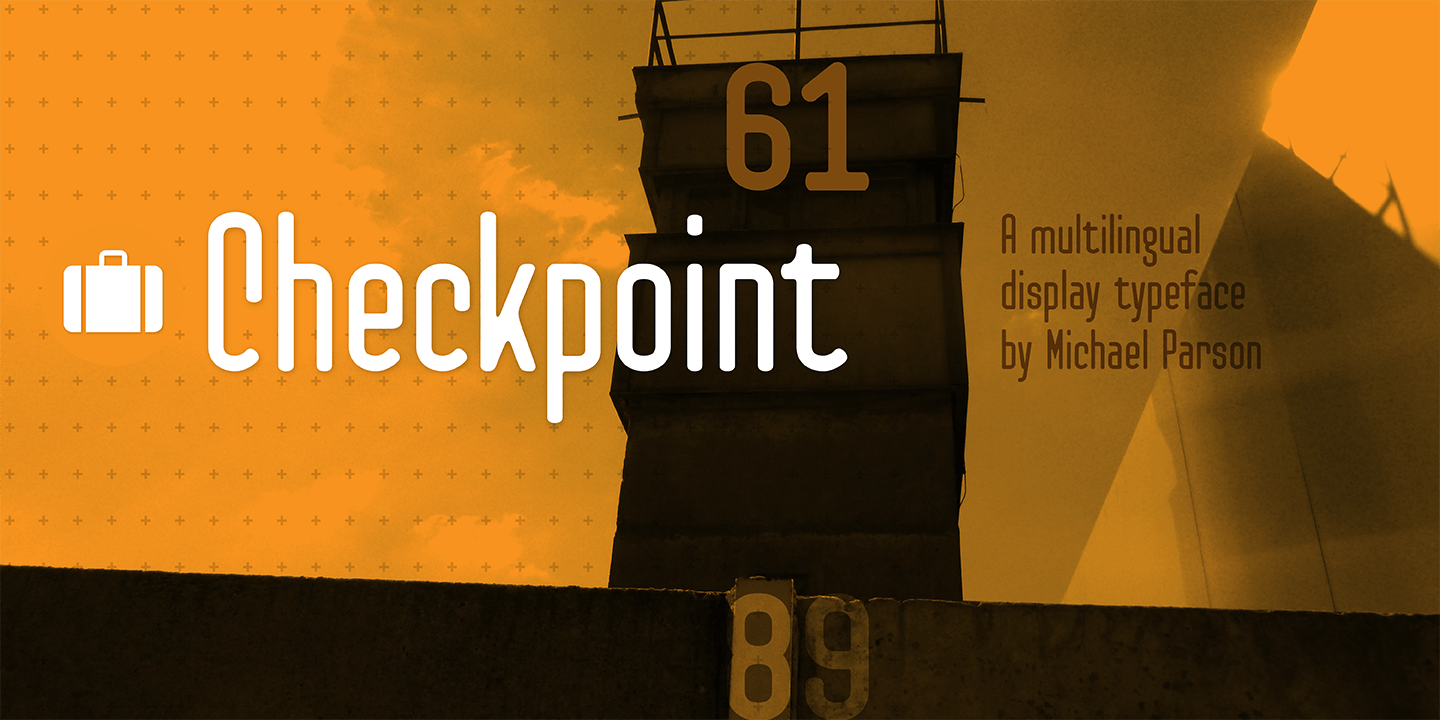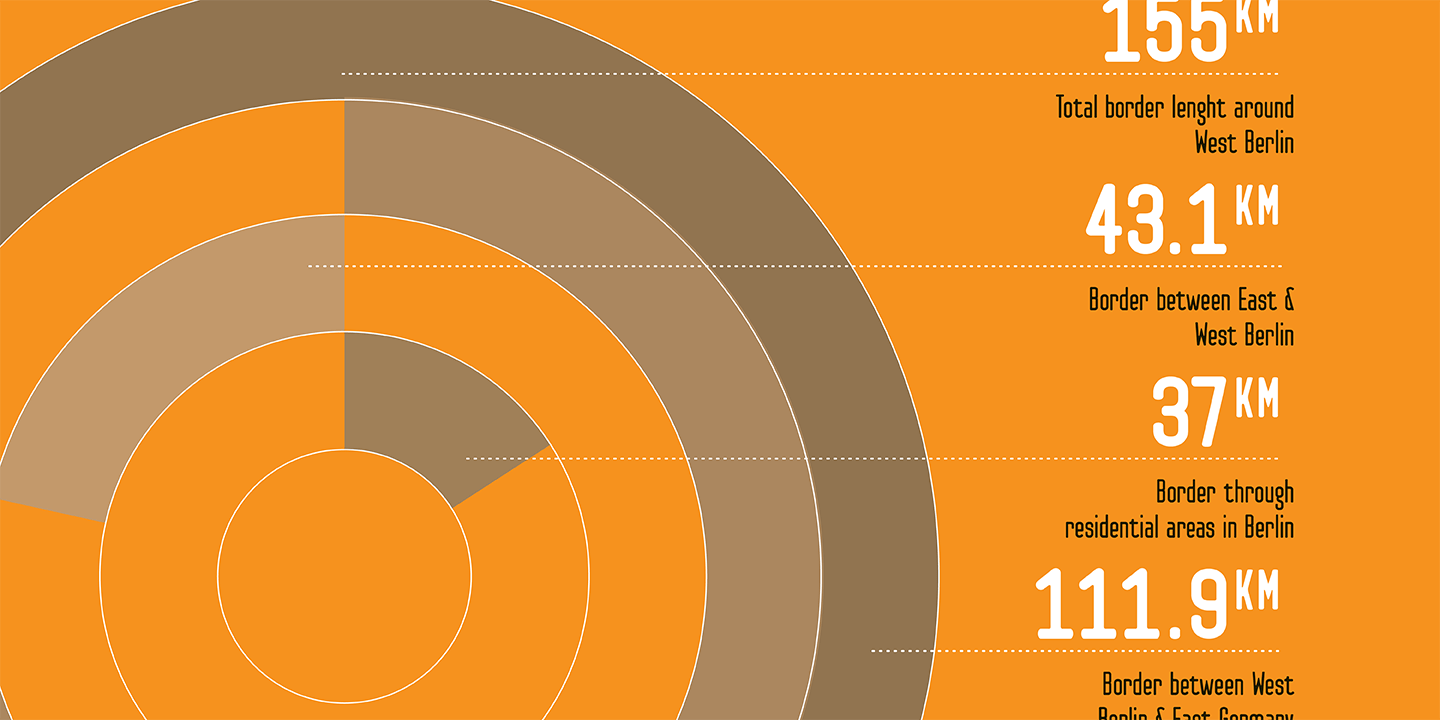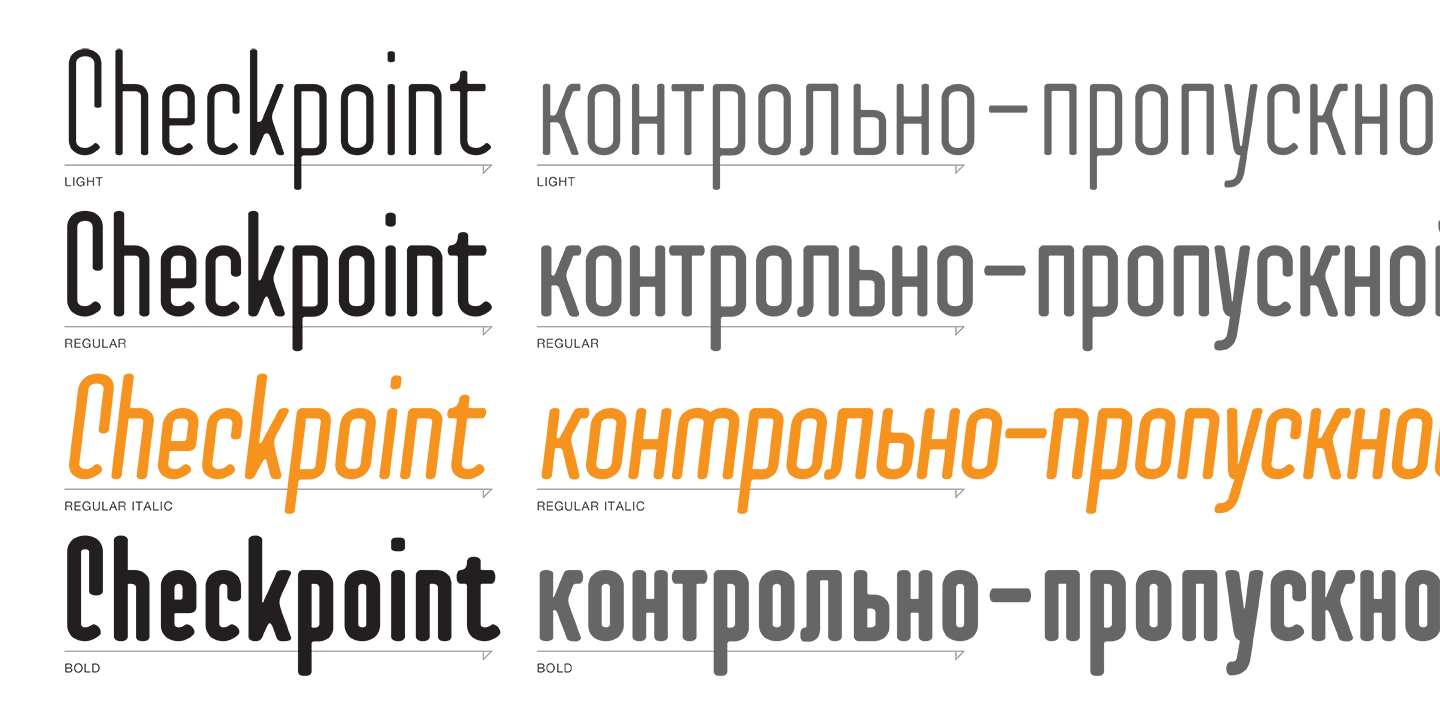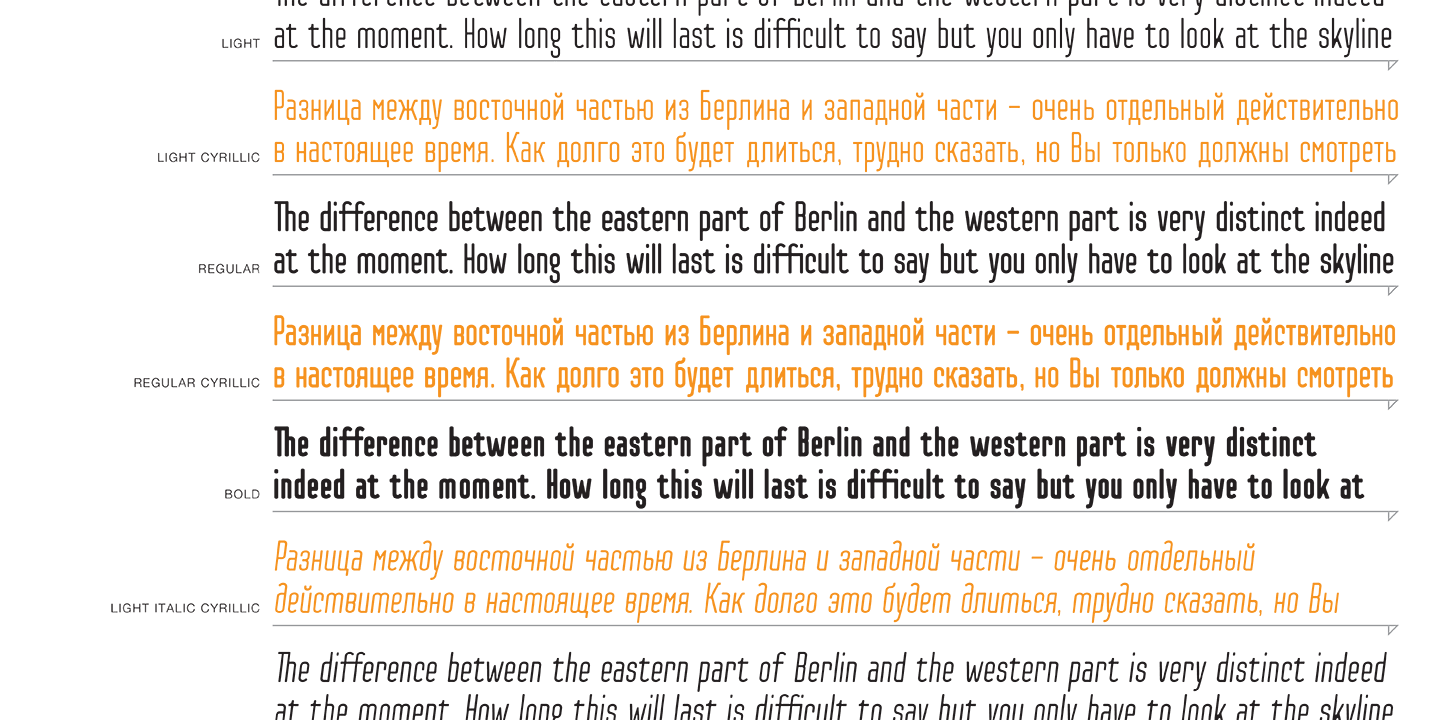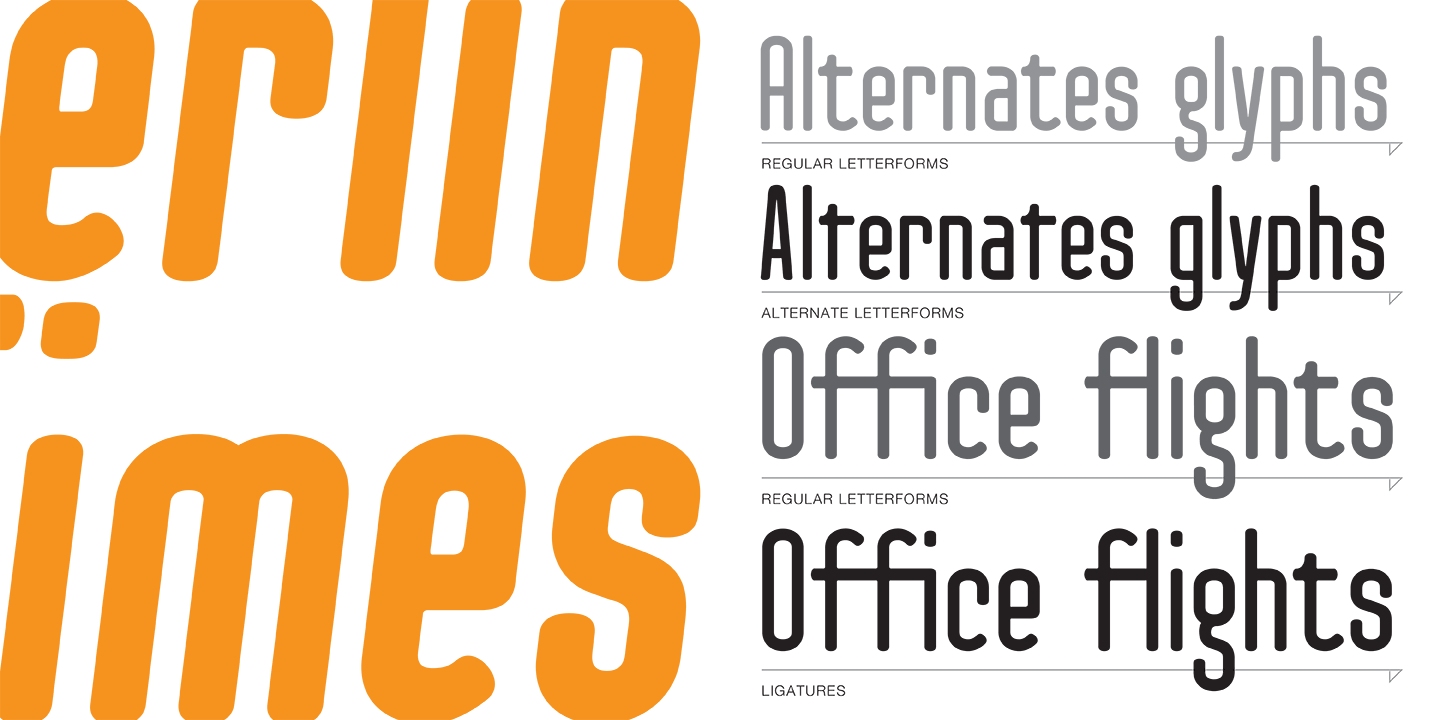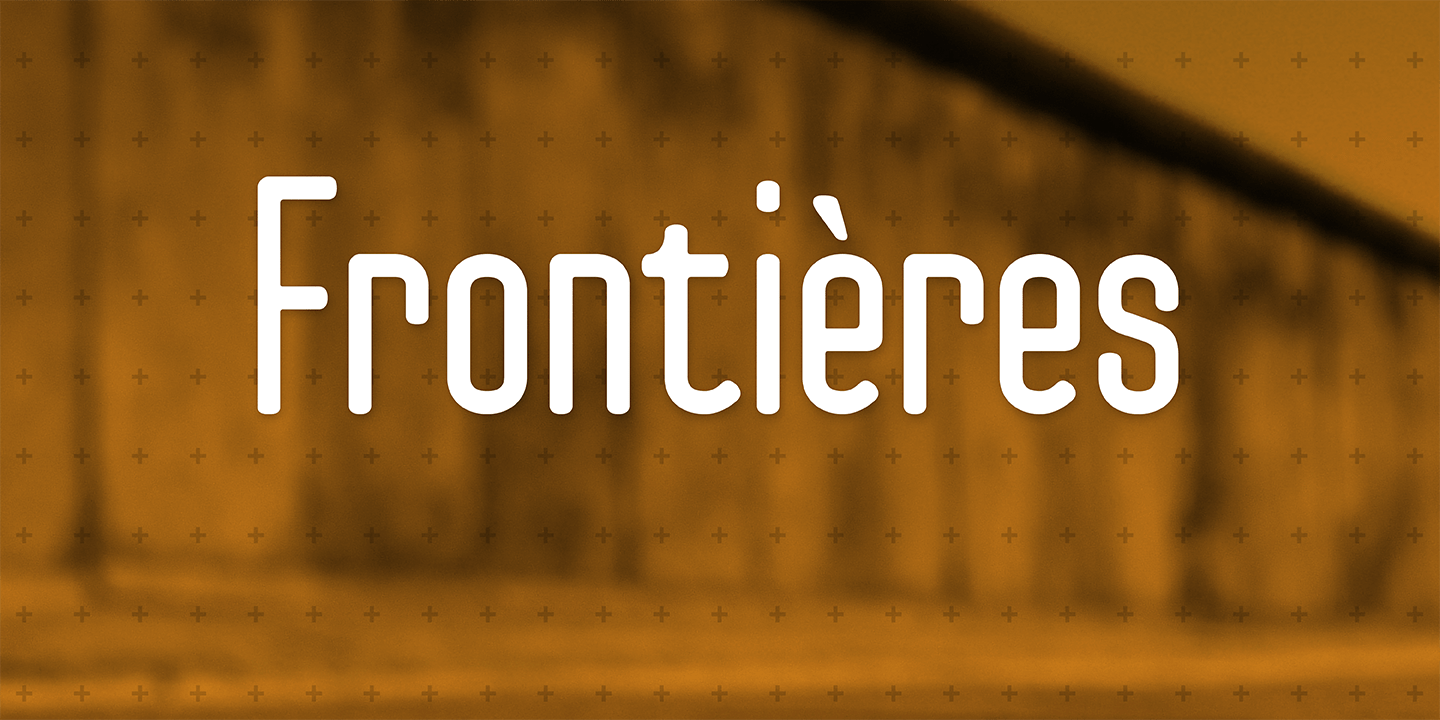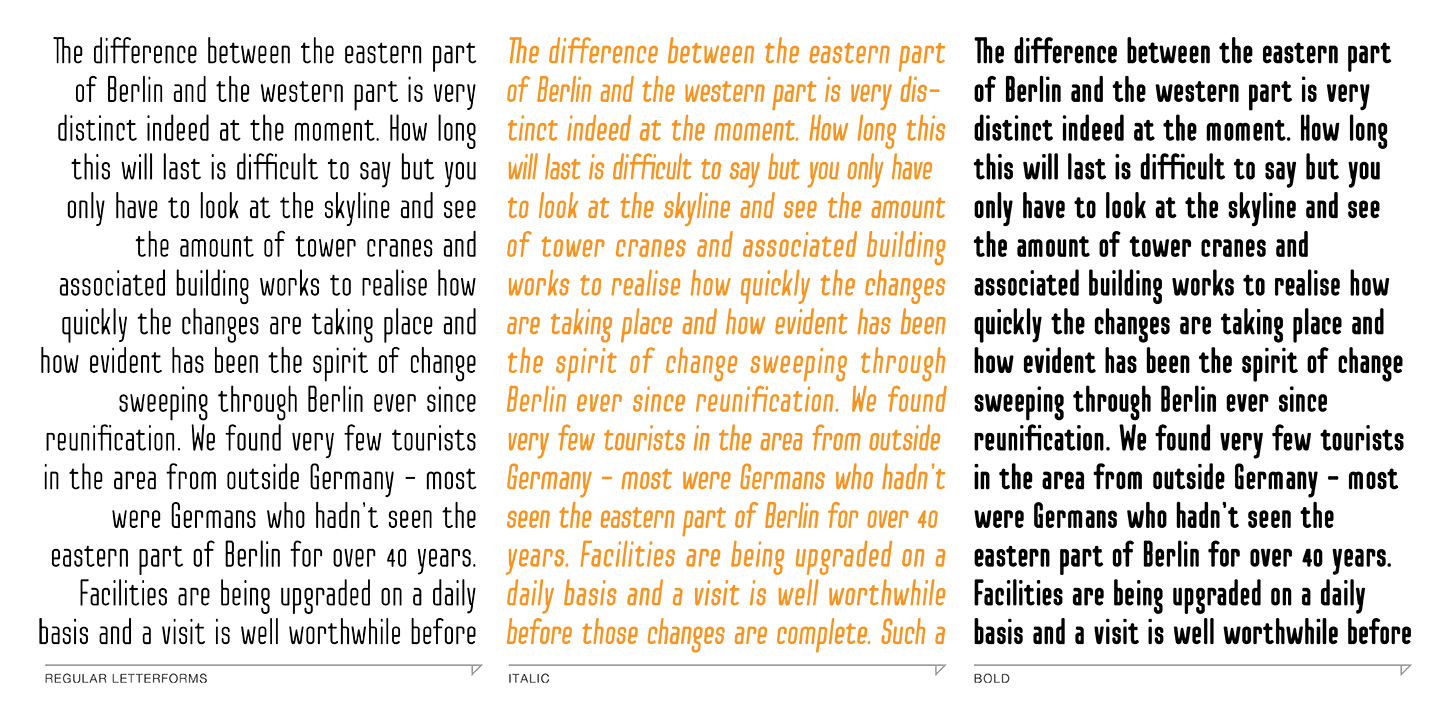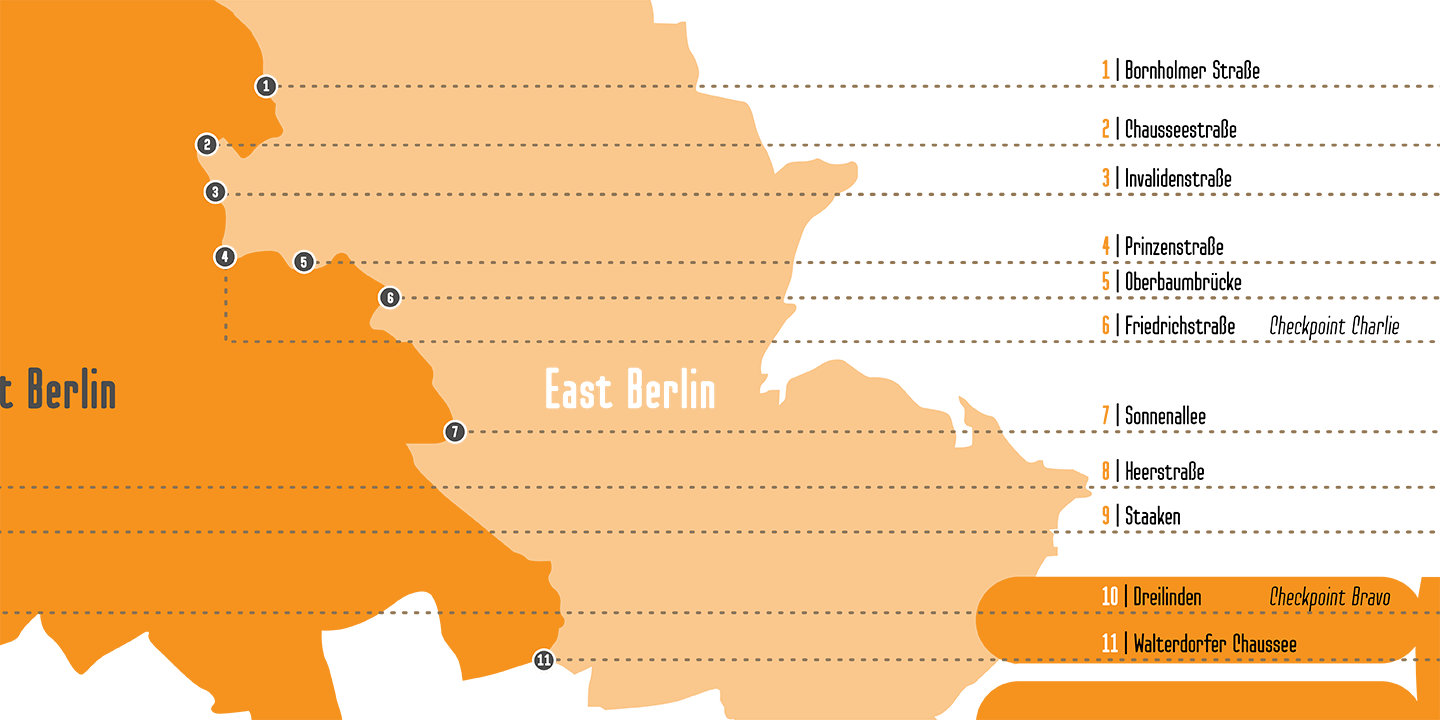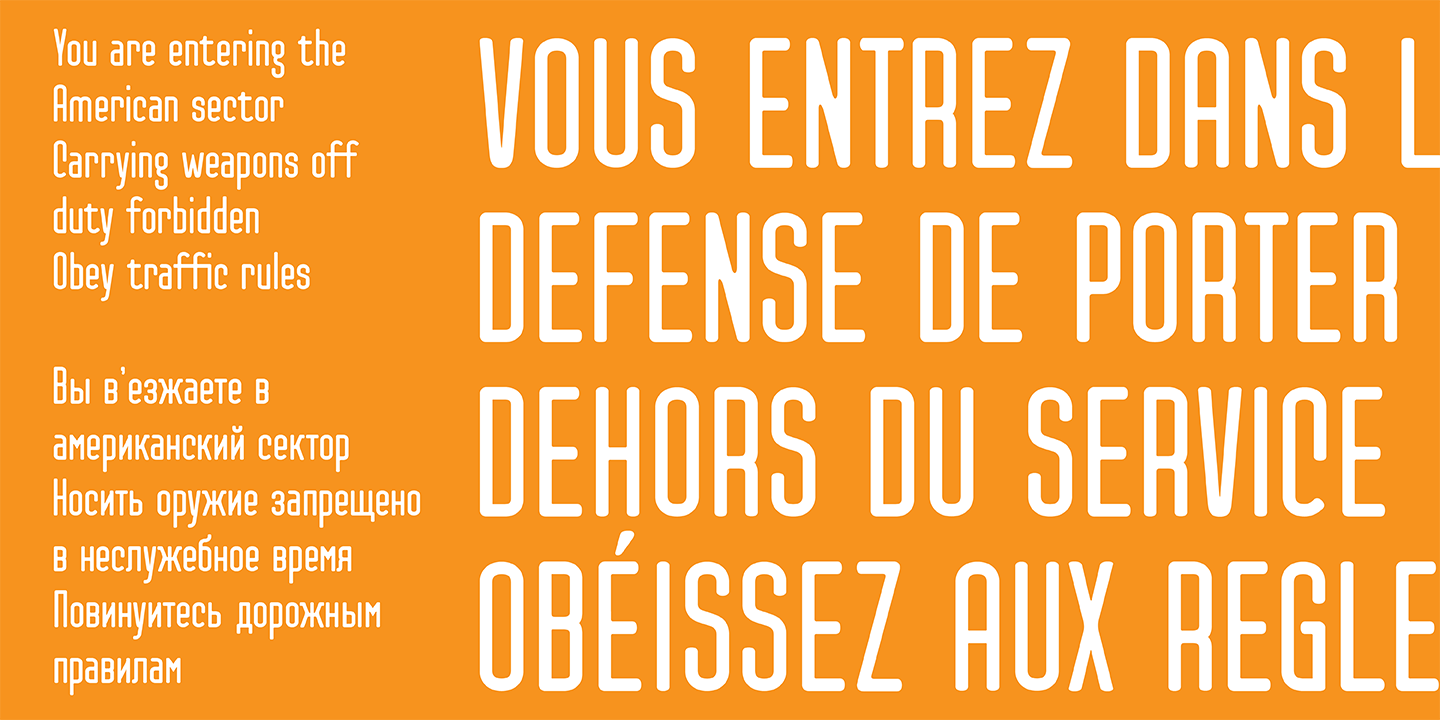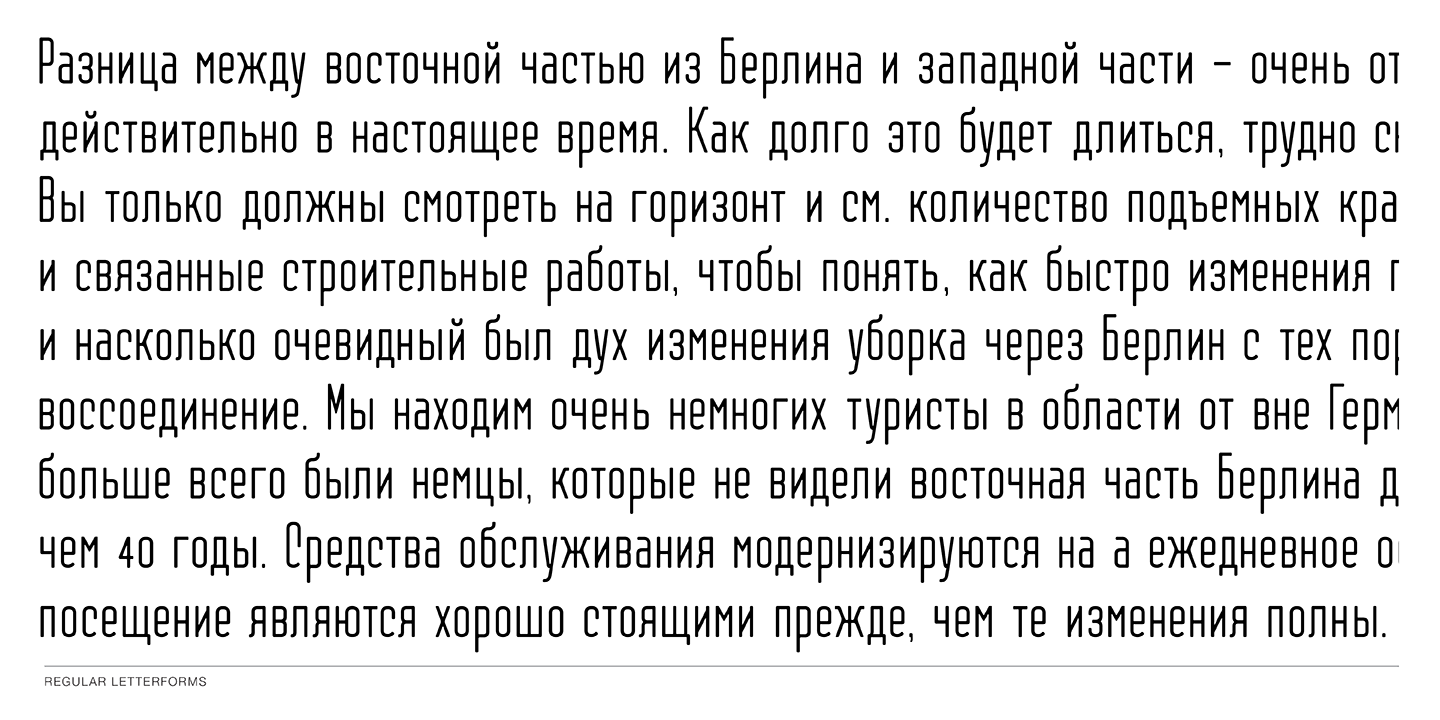
Checkpoint
Font Family by Typogama
Checkpoint is a condensed, display typeface inspired by the lettering on the famous wooden shack of Checkpoint Charlie in Berlin. This family contains three weights and their italics plus an extended language support for Cyrillic languages. Ranging from light to bold, this typeface can be used for short passages of text or for display uses like signage or tv titling.